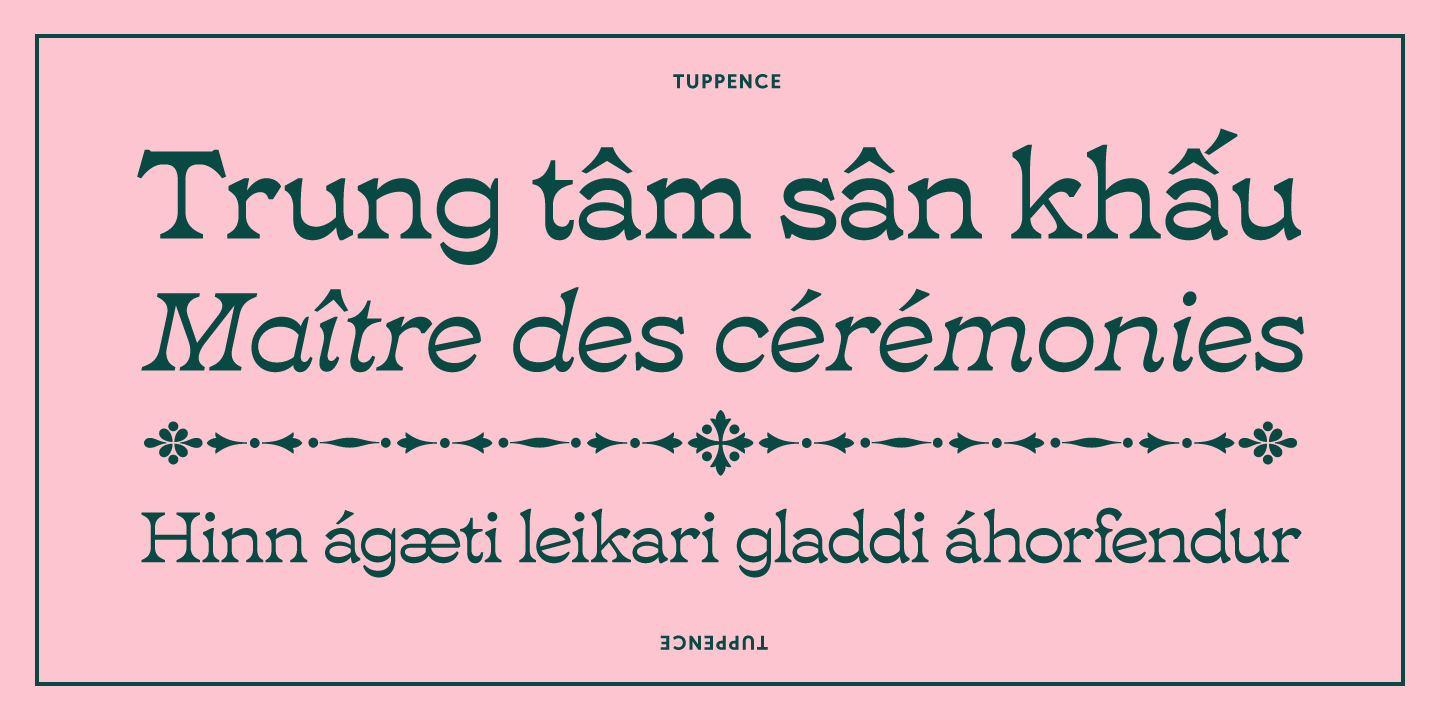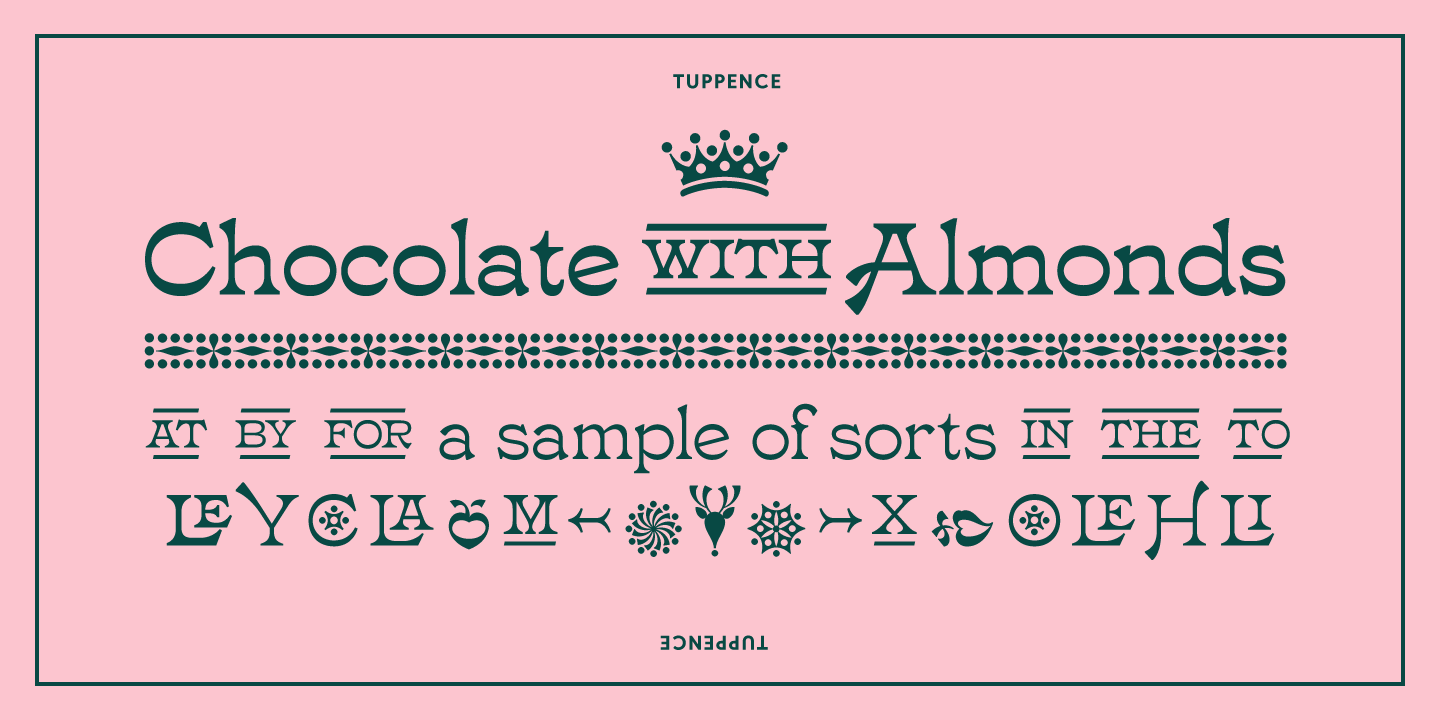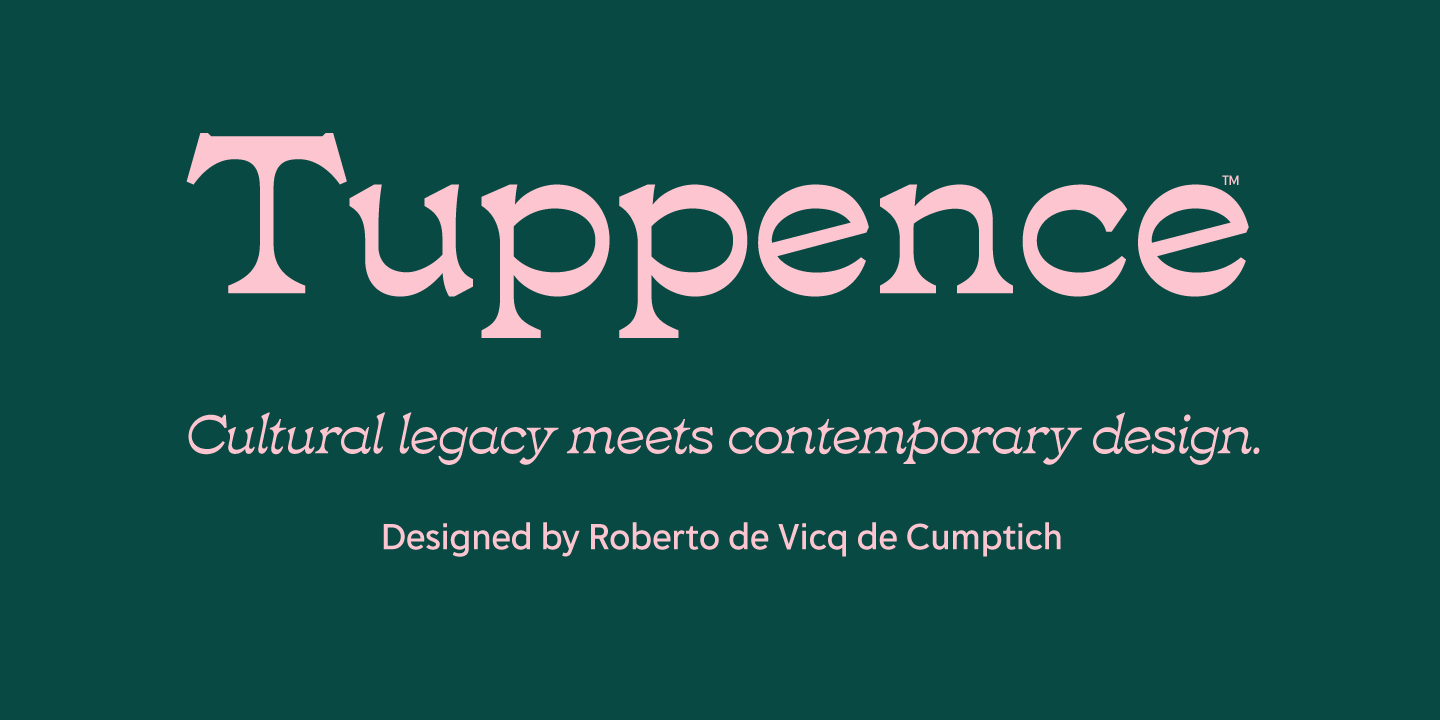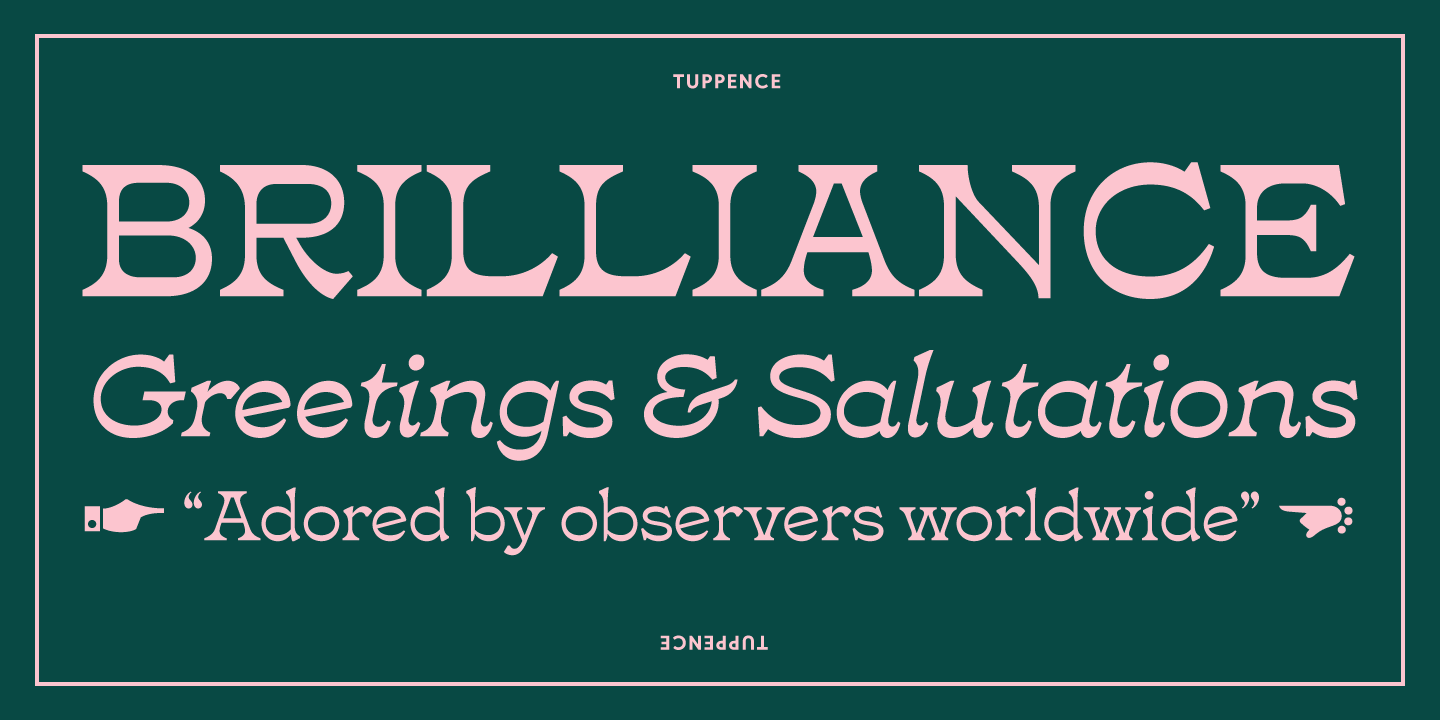
Tuppence Variable
About Tuppence Variable
Inspired by the design of the London foundry Stephenson Blake typeface Blackfriars, designer Roberto de Vicq de Cumptich saw real potential for the design to be reinterpreted in a manner that today's designers will find more useful. de Vicq's…